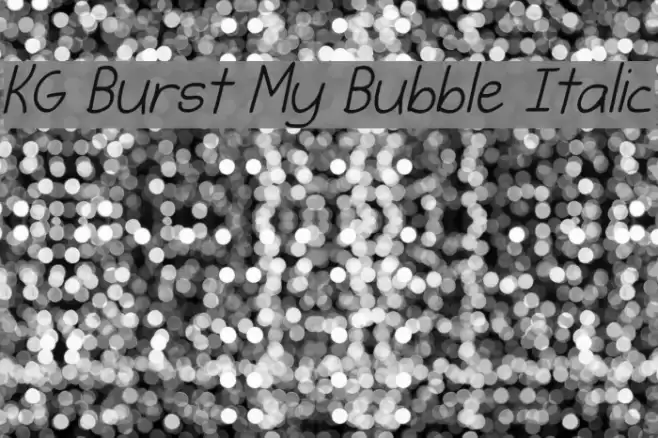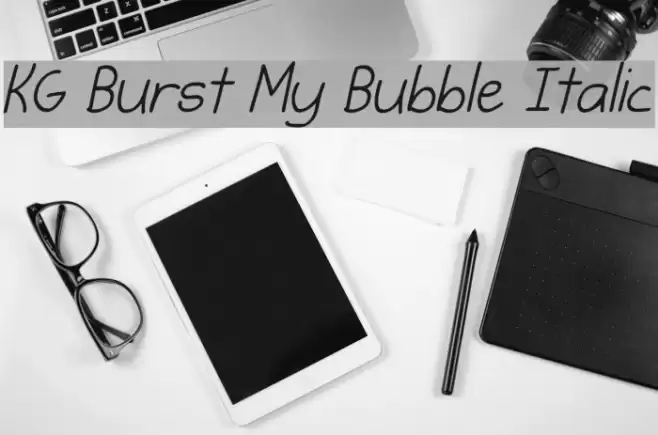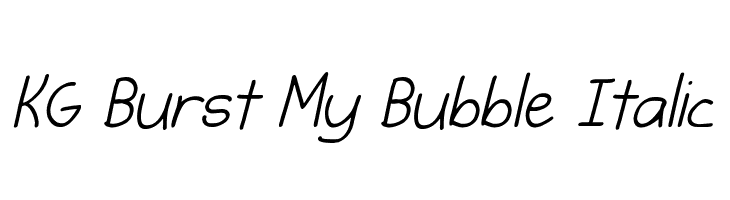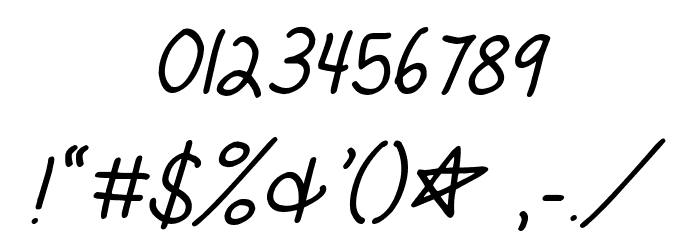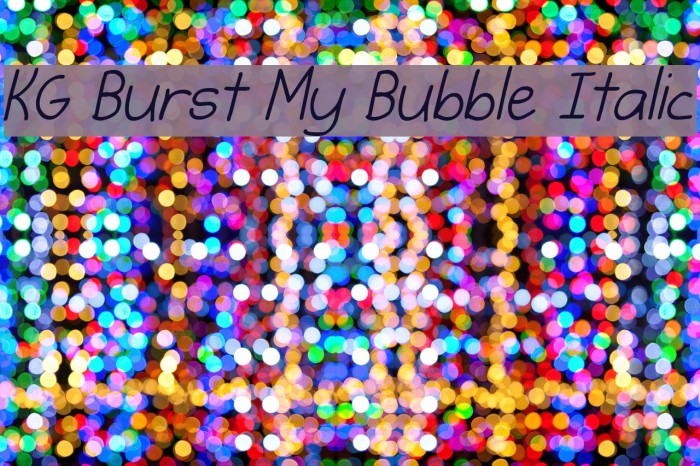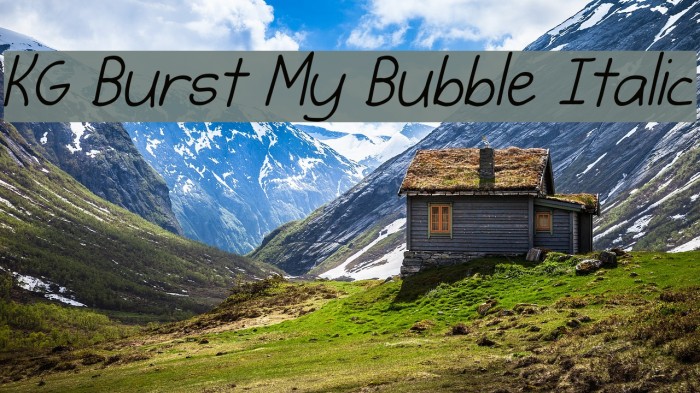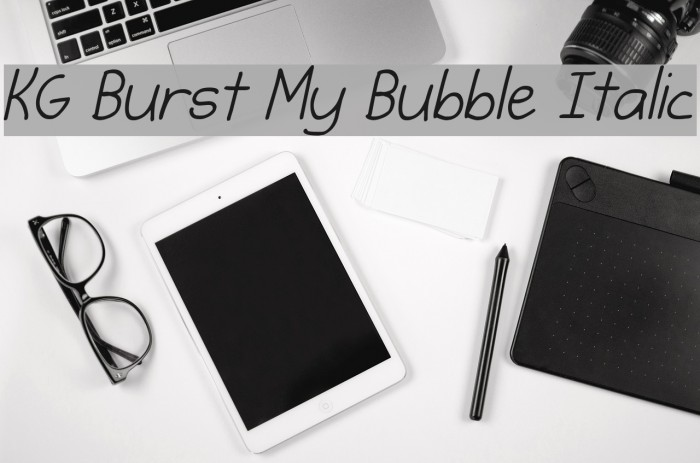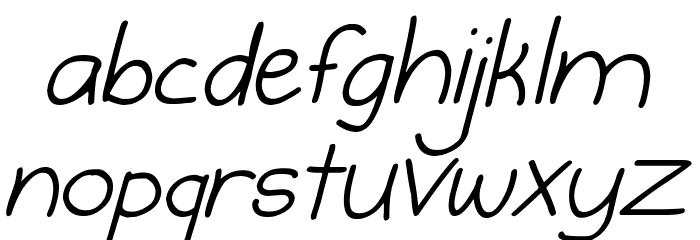
KG Burst My Bubble Italic Font
KG Burst My Bubble Italic Description
This playful and whimsical font features a handwritten style with a slight slant, giving it an informal and friendly appearance. The characters are rounded and smooth, with a consistent stroke width that adds to its approachable feel. The uppercase and lowercase letters maintain a uniform height, while the numerals and special characters are designed to complement the overall style. This font's casual elegance makes it suitable for projects that require a personal touch.
A playful, handwritten font with a slight slant and rounded characters from Uncategorized fonts.
- Proposed Projects: Ideal for greeting cards, children's books, playful branding, and casual invitations.
- Overall Style: Casual
- Use Case: Headlines, Invitations, Branding